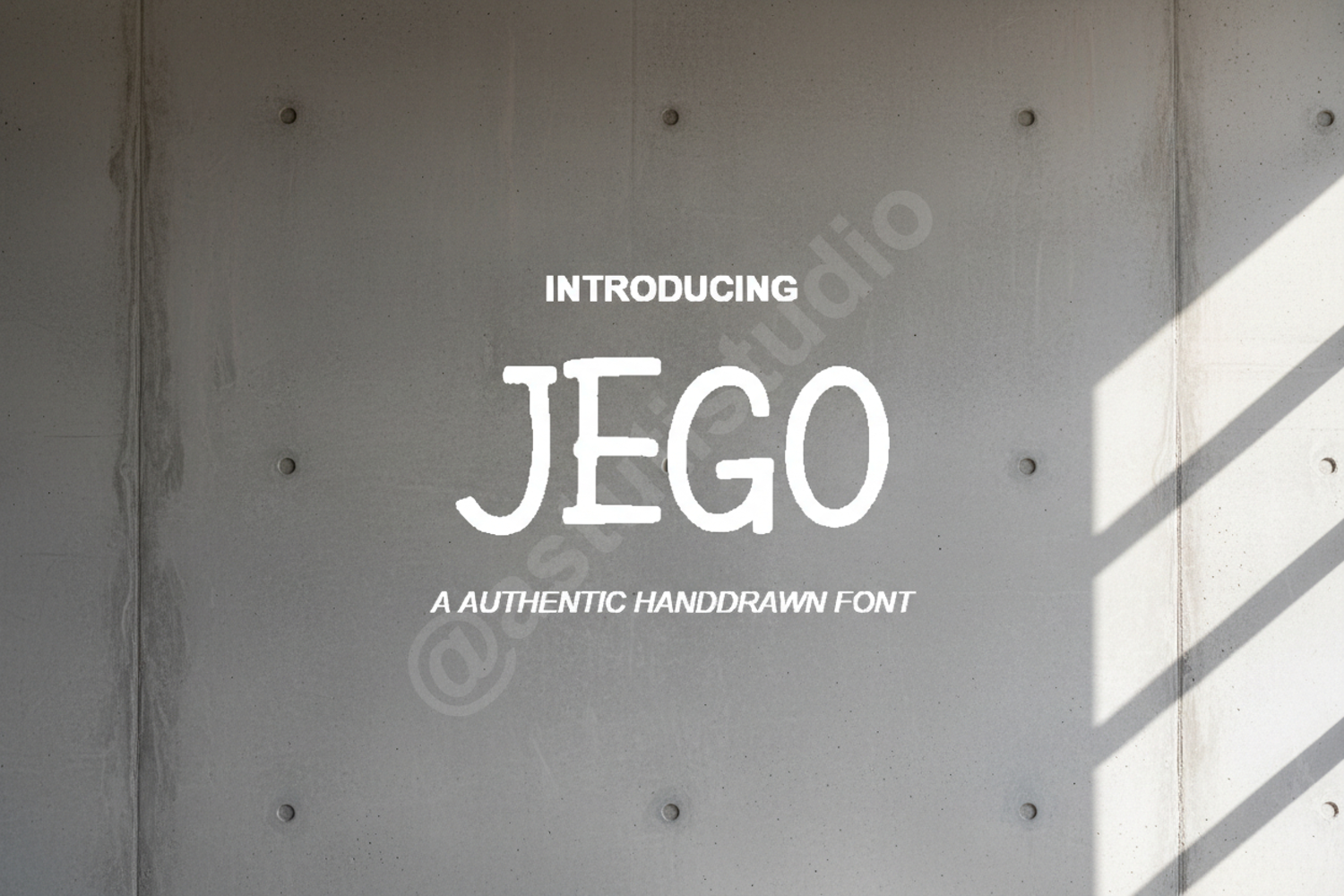
Jego - Sophisticated Modern Sans Serif
Jego
Jego is a premium sans serif typeface that blends minimalist aesthetics with modern functionality. Designed with clean lines and perfectly balanced proportions, Jego offers a sophisticated touch to any creative project. Whether you are building a high-end brand identity or designing a sleek website, this font provides the versatility and professional polish required for modern design standards.
- Comprehensive character set including uppercase, lowercase, and numerals
- Full punctuation and multilingual support
- Smooth rendering for both print and digital screens
- Branding and Corporate Identity: Create a memorable and professional look for logos, business cards, and stationery.
- Editorial Design: Perfect for clean layouts in magazines, lookbooks, and digital brochures.
- Web and Digital Media: Highly legible for UI/UX design, mobile apps, and social media graphics.
- Packaging: Add a touch of luxury and clarity to product labels and retail boxes.
- Advertising: Stand out in marketing campaigns with clear, bold, and modern typography.